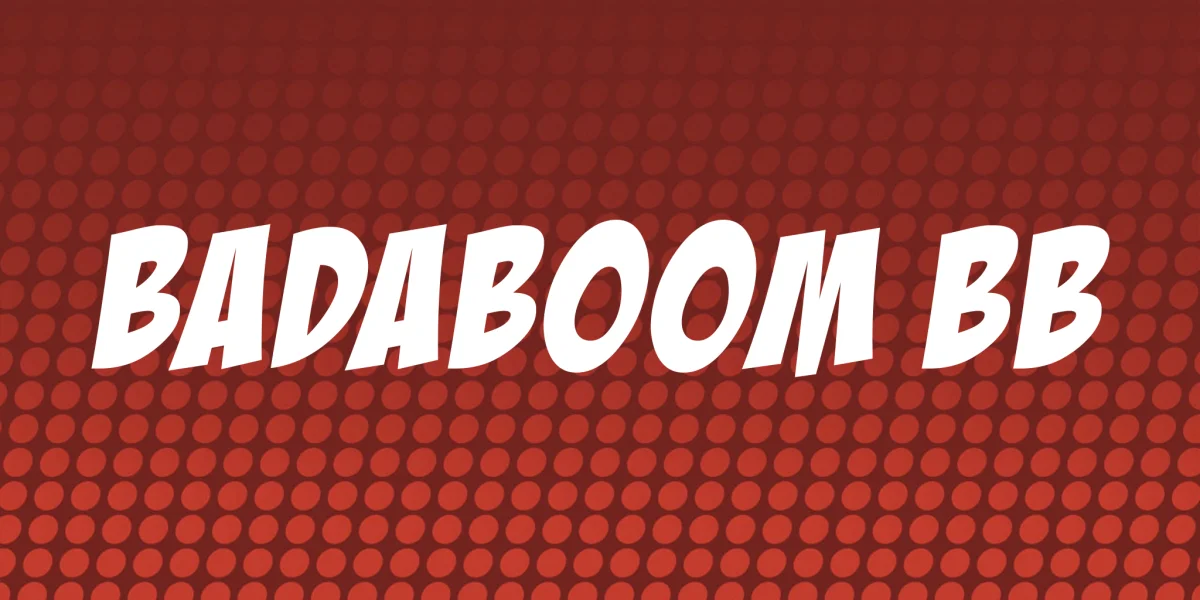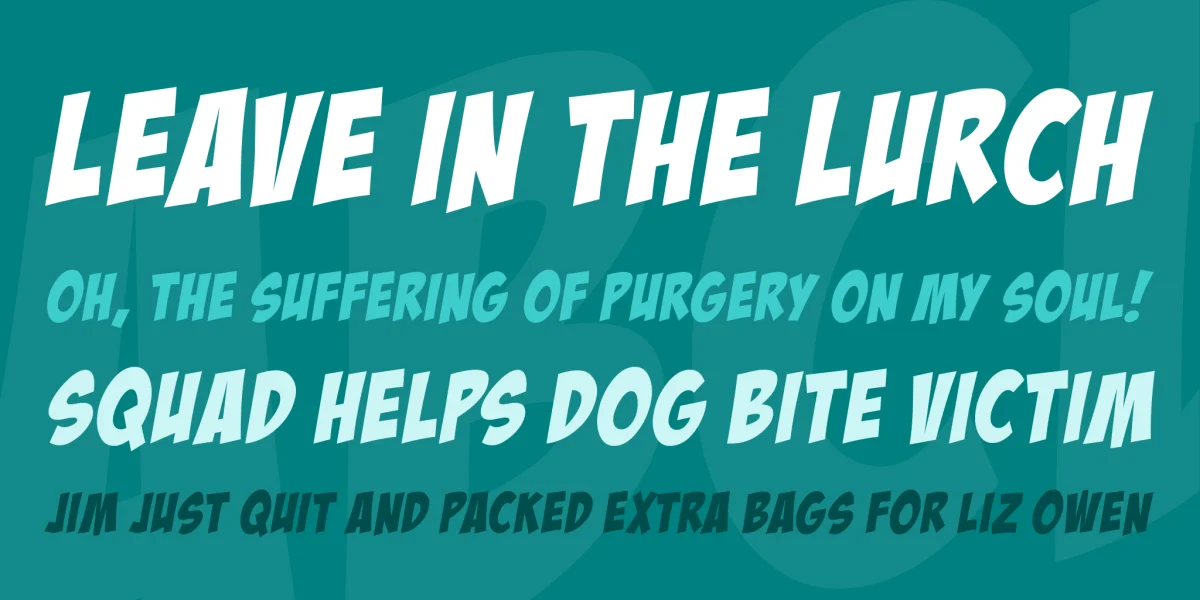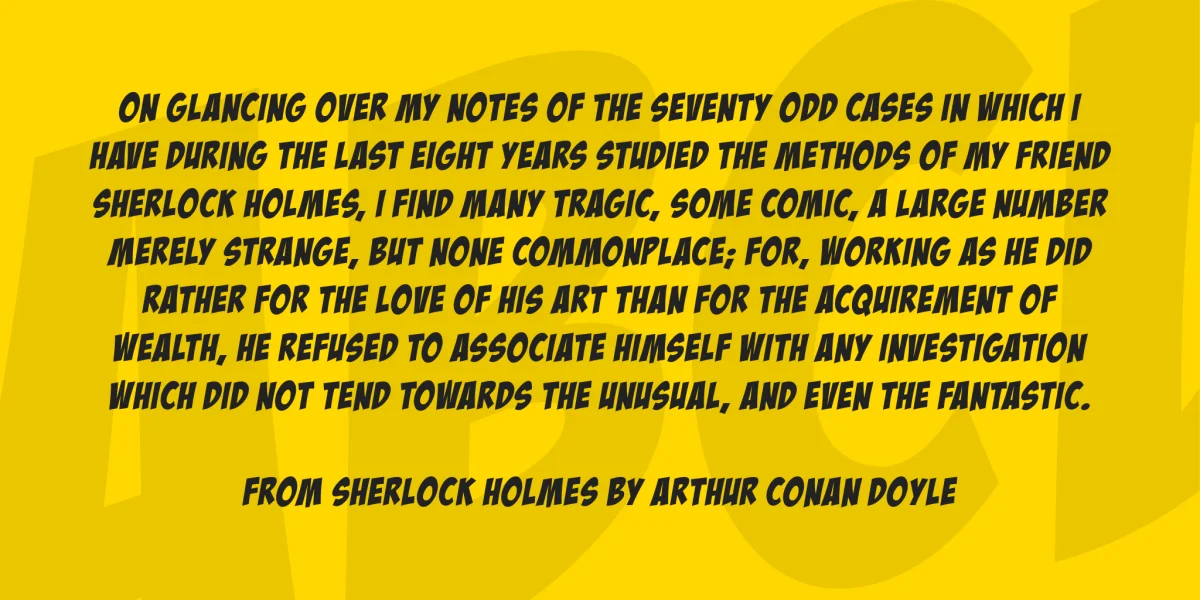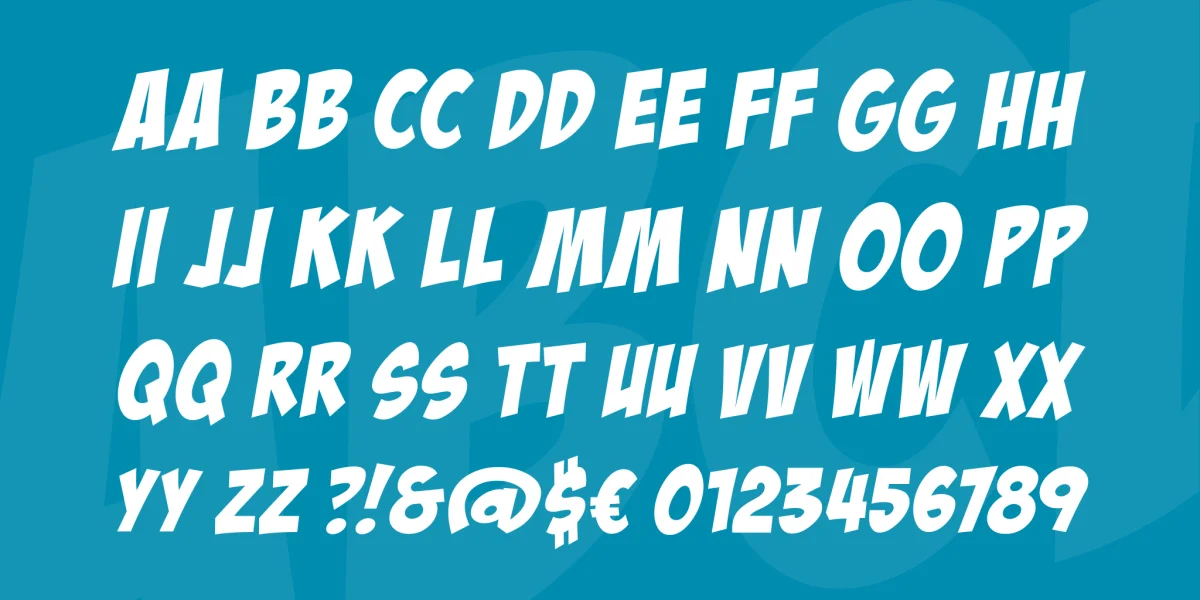
Let’s face it, you need an all-purpose, workhorse of a special effects font. Something with enough character but simple enough to always come through in a pinch. Download BadaBoom today!